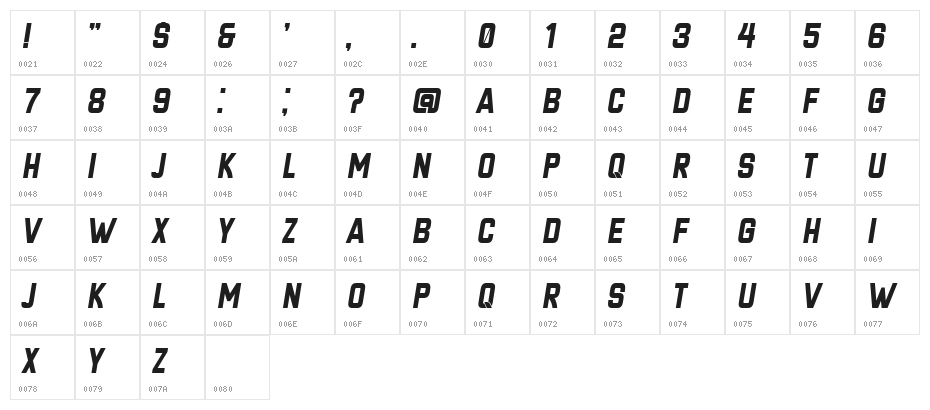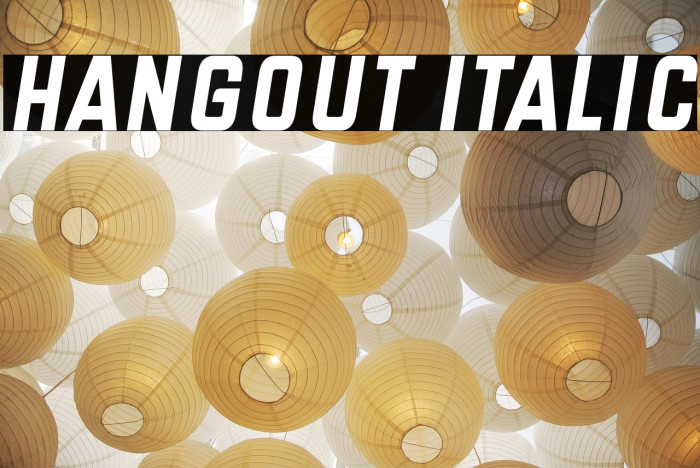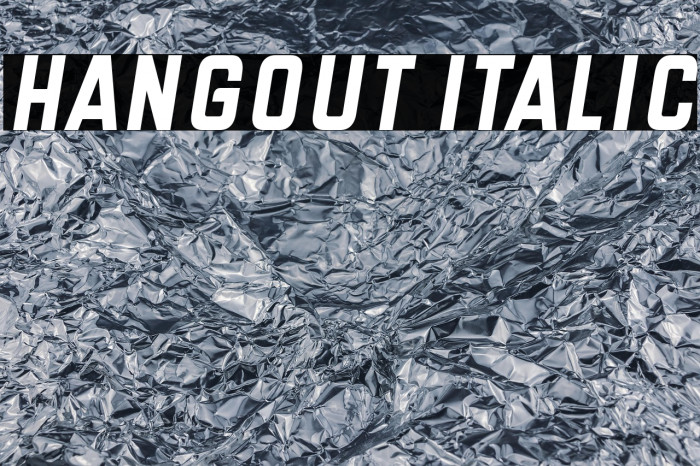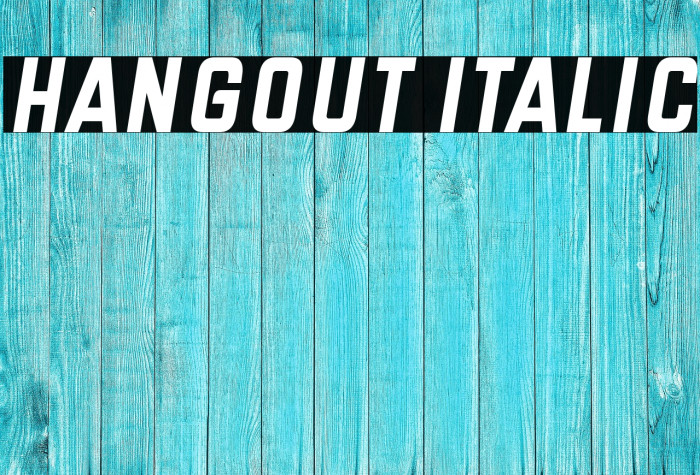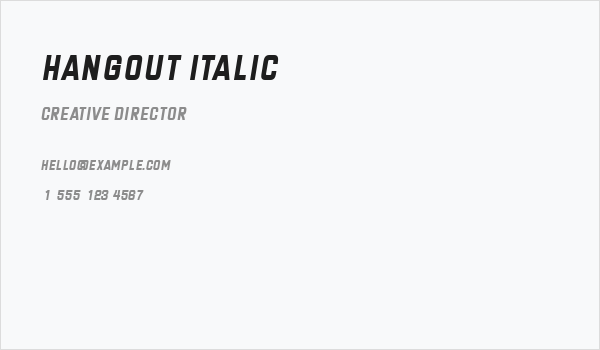
Hangout Italic Font
Hangout Italic Description
This font features a bold, italicized style with a modern and dynamic appearance. The characters are slightly slanted, giving a sense of motion and energy. The strokes are thick and consistent, providing a strong visual impact. The uppercase and lowercase letters maintain a uniform width, enhancing readability while adding a sleek, contemporary feel. The numbers and special characters are designed to match the overall aesthetic, ensuring cohesion across all elements. This font is ideal for projects that require a bold statement, such as headlines, posters, and branding materials.
| Proposed Projects | Ideal for headlines, posters, branding, and any project needing a bold statement. |